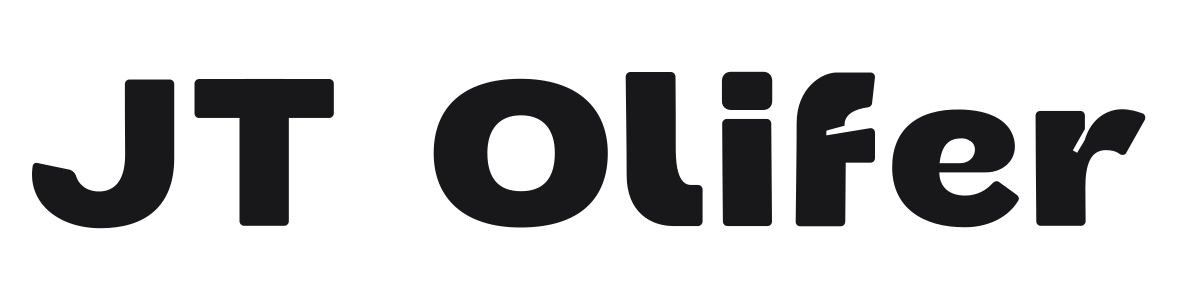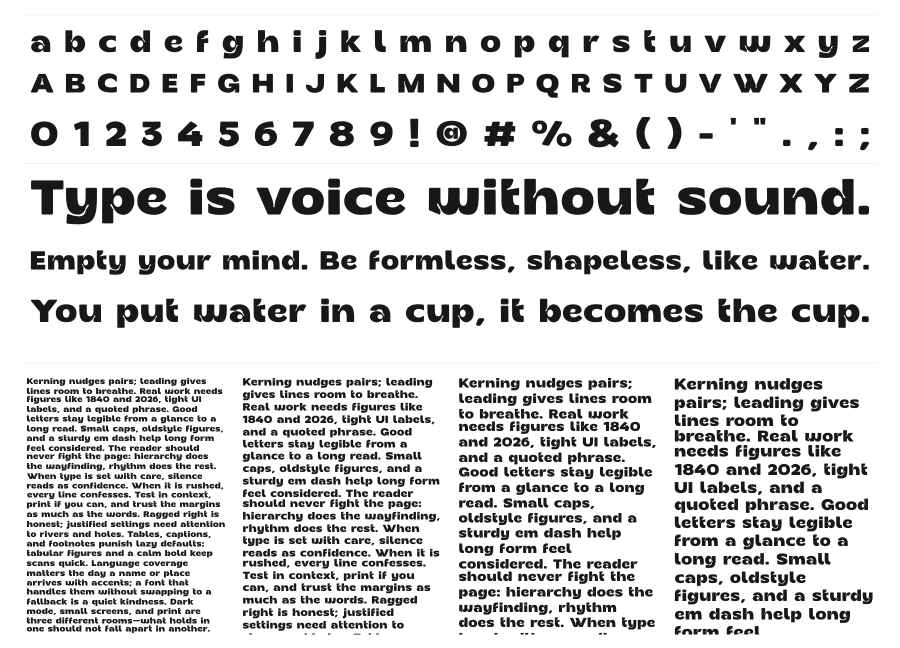
JT Olifer
JT Olifer is a heavy rounded sans with deep inktrap details cut into its junctions. Designed by Laire Banyu Sandi Pawenang in 2021, it combines soft terminals with sharp angular notches for a tension that reads as both friendly and assertive. The family spans 40 weights, making it a serious tool for display-driven brand work.